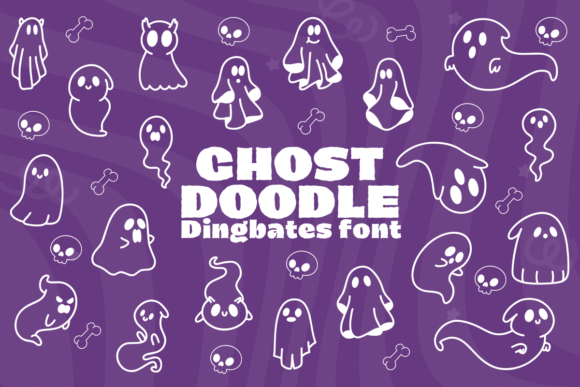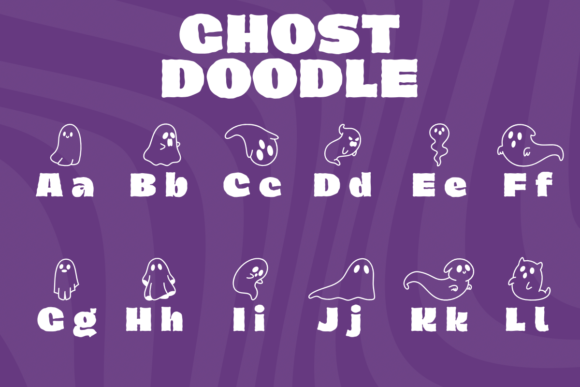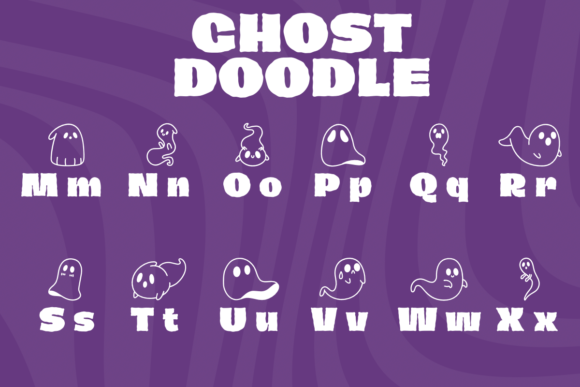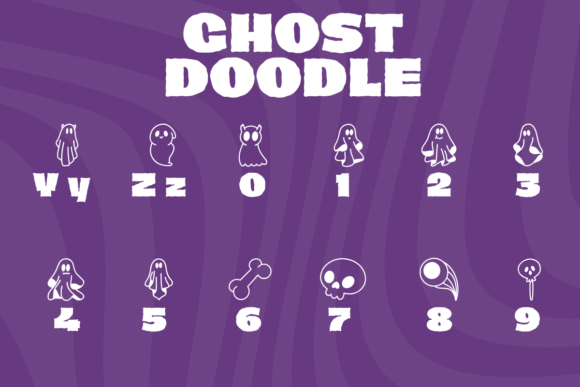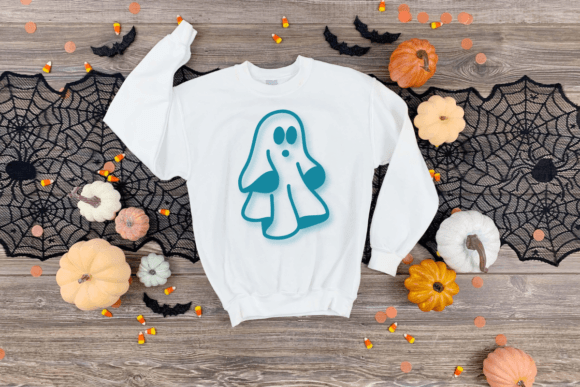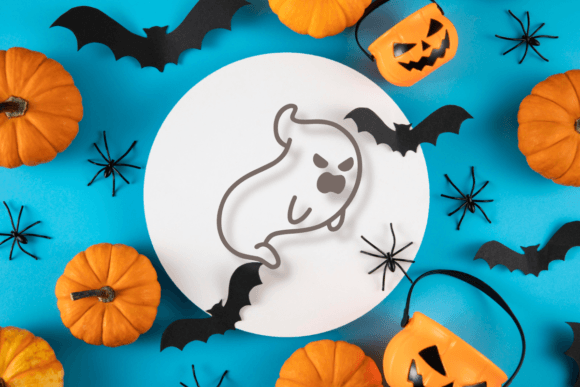
The Art of Creativity: Bringing Ghost Doodle Font to Life
You know that moment when a spark of creativity hits you, and you can’t wait to bring your idea to life? Perhaps it’s a quirky wedding invitation, a handmade gift for a loved one, or a unique logo for your business. Whatever the project, the right font can make all the difference.
Enter the enchanting Ghost Doodle Font, a dingbats font that captures the essence of a sketchy, whimsical style. This font is designed to enhance your creative projects, adding a touch of personality and charm to any design. With Ghost Doodle Font, you can create one-of-a-kind pieces that reflect your unique voice and style.
For designers, Ghost Doodle Font is a valuable asset, offering endless possibilities for creative expression. Whether you’re a seasoned pro or a budding artist, this font is sure to inspire your next project and help you stand out from the crowd.
Ghost Doodle Font Key Features
- Unique Hand-Drawn Style: The Ghost Doodle Font features a distinctive, hand-drawn aesthetic with irregular lines and subtle imperfections, giving it a personal and creative touch.
- Extensive Character Set: The Ghost Doodle Font includes a comprehensive character set, including uppercase and lowercase letters, numerals, punctuation marks, and special characters.
- Customizable: The font can be customized using advanced features like ligatures, swashes, and stylistic sets to create unique and varied designs.
- Perfect for Creative Projects: The Ghost Doodle Font is ideal for creative projects, such as branding, advertising, packaging, and editorial design, where a distinctive and artistic look is desired.
Ghost Doodle Font Review
I recently had the chance to work with the Ghost Doodle Font, and I must say it’s a unique and intriguing addition to any design project. ✨ One of the things that stands out is its organic, hand-drawn feel, which can add a touch of whimsy and personality to any text. The font is also highly customizable, with a wide range of styles and variations available.
However, there are a few limitations to consider ⚠️. For one, the font can be a bit tricky to read in certain contexts, particularly at smaller font sizes. Additionally, the file size is relatively large, which can slow down load times for complex projects.
Here are some specific pros and cons:
- Unique, hand-drawn feel ✨
- Available in a range of styles and variations
- Can be tricky to read in certain contexts ⚠️
- Large file size
Overall, I would recommend the Ghost Doodle Font to designers looking to add a touch of personality and whimsy to their projects. However, it may not be the best choice for projects that require high legibility or fast load times.
The Ghost Doodle Font is ideal for:
- Creating whimsical and playful designs for children’s products or events.
- Adding a personal touch to wedding invitations or other special occasion graphics.
- Designing illustrations and graphics for social
Alternatives to Ghost Doodle Font
Oswald is a sans-serif font that resembles a handwritten style, often used for titles and headings. It is more geometric and structured than Ghost Doodle Font, making it suitable for formal and modern designs.
Comparison: Oswald is more legible and structured than Ghost Doodle Font, but lacks the whimsical feel.
Lato is a sans-serif font that has a friendly and approachable feel, often used for body text and headings. It has a more rounded feel than Ghost Doodle Font, making it suitable for casual and creative designs.
Q: Can I customize the Ghost Doodle Font to fit my project’s specific needs?
Yes, the Ghost Doodle Font is highly customizable. You can adjust the font’s size, color, and style using most design software. Additionally, you can use font manipulation tools or scripts to further customize the font, such as changing the line width or adding custom flourishes.